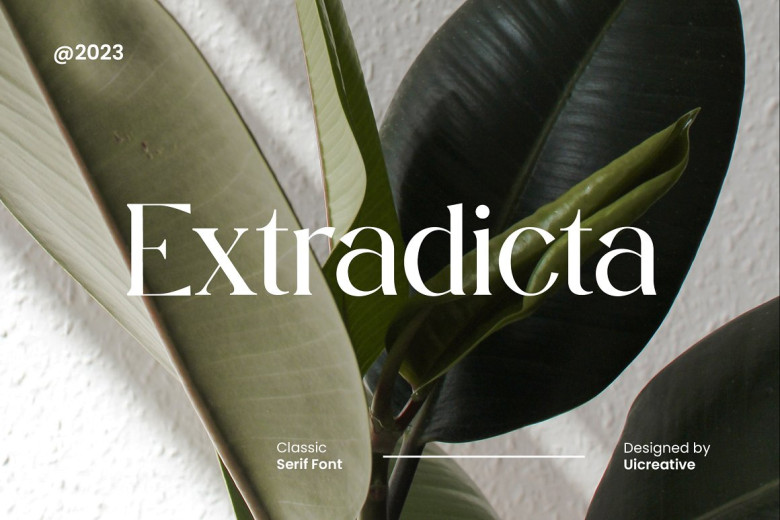
Extradicta Font
Extradicta Classic Serif Font  is our new product. A Modern Serif font for something beautiful and modern but with an elegant hint of class. This font is ideally suited to a great variety of applications, e.g.: signature , stationery , logo , wedding typographyquotes, magazine or book covers ,H1-H6 h2 headers, clothing, branding, presentation design, packaging, containers. Also the fashion-related photograph or editorial now manifests both men’s and women’s qualities.
Extradicta Classic Serif Font